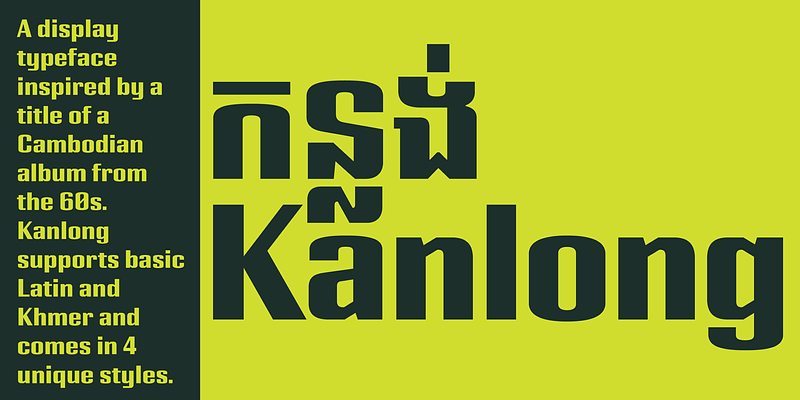
Kanlong — Khmer Font
Kanlong Regular
Kanlong Rush
Kanlong Fuzzy
Kanlong Dirt
About Kanlong
Kanlong is a display typeface inspired by the title of a Cambodian album from the 60s. The typeface features high contrast between verticals and horizontals creating a modern yet expressive feel, making it the perfect typeface for large-scale display applications. Kanlong comes in 4 unique styles, Regular, Rush, Fuzzy & Dirt, making it highly versatile in the field of branding.
- Designers
- Tep Sovichet, Hak Longdey
- Scripts
- Khmer, Latin